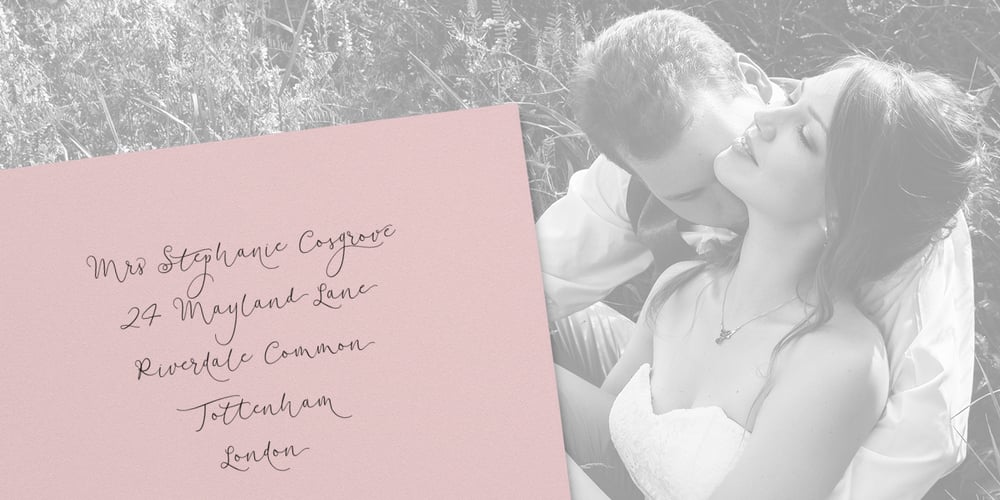
Soft Whisperings Calligraphic Font Family was designed by Joanne Hewitt and published by Joanne Marie. Soft Whisperings Calligraphic contains 1 styles and family package options. Introducing Soft Whisperings Calligraphic – A beautifully flowing modern calligraphy font. This delicate, modern script font is full of romance and elegance. It’s perfect for wedding stationery, Save The Date and special occasion cards. Soft Whisperings has a lovely handwritten feel to it so it’s also great for logos, signatures, taglines and calligraphic projects. There are plenty of alternate glyphs and ligatures! International Language Support Soft Whisperings Calligraphic supports 219 latin based languages, which are spoken in different 212 countries. Abenaki, Afaan Oromo, Afar, Afrikaans, Albanian, Alsatian, Amis, Anuta, Aragonese, Aranese, Aromanian, Arrernte, Arvanitic (Latin), Asturian, Atayal, Aymara, Azerbaijani, Bashkir (Latin), Basque, Belarusian (Latin), Bemba, Bikol, Bislama, Bosnian, Breton, Cape Verdean Creole, Catalan, Cebuano, Chamorro, Chavacano, Chichewa, Chickasaw, Cimbrian, Cofán, Cornish, Corsican, Creek, Crimean Tatar (Latin), Croatian, Czech, Danish, Dawan, Delaware, Dholuo, Drehu, Dutch, English, Esperanto, Estonian, Faroese, Fijian, Filipino, Finnish, Folkspraak, French, Frisian, Friulian, Gagauz (Latin), Galician, Ganda, Genoese, German, Gikuyu, Gooniyandi, Greenlandic (Kalaallisut), Guadeloupean Creole, Gwich’in, Haitian Creole, Hän, Hawaiian, Hiligaynon, Hopi, Hotcąk (Latin), Hungarian, Icelandic, Ido, Igbo, Ilocano, Indonesian, Interglossa, Interlingua, Irish, Istro-Romanian, Italian, Jamaican, Javanese (Latin), Jèrriais, Kaingang, Kala Lagaw Ya, Kapampangan (Latin), Kaqchikel, Karakalpak (Latin), Karelian (Latin), Kashubian, Kikongo, Kinyarwanda, Kiribati, Kirundi, Klingon, Kurdish (Latin), Ladin, Latin, Latino sine Flexione, Latvian, Lithuanian, Lojban, Lombard, Low Saxon, Luxembourgish, Maasai, Makhuwa, Malay, Maltese, Manx, Māori, Marquesan, Megleno-Romanian, Meriam Mir, Mirandese, Mohawk, Moldovan, Montagnais, Montenegrin, Murrinh-Patha, Nagamese Creole, Nahuatl, Ndebele, Neapolitan, Ngiyambaa, Niuean, Noongar, Norwegian, Novial, Occidental, Occitan, Old Icelandic, Old Norse, Onĕipŏt, Oshiwambo, Ossetian (Latin), Palauan, Papiamento, Piedmontese, Polish, Portuguese, Potawatomi, Q’eqchi’, Quechua, Rarotongan, Romanian, Romansh, Rotokas, Sami (Inari Sami), Sami (Lule Sami), Sami (Northern Sami), Sami (Southern Sami), Samoan, Sango, Saramaccan, Sardinian, Scottish Gaelic, Serbian (Latin), Seri, Seychellois Creole, Shawnee, Shona, Sicilian, Silesian, Slovak, Slovenian, Slovio (Latin), Somali, Sorbian (Lower Sorbian), Sorbian (Upper Sorbian), Sotho (Northern), Sotho (Southern), Spanish, Sranan, Sundanese (Latin), Swahili, Swazi, Swedish, Tagalog,Tahitian, Tetum, Tok Pisin, Tokelauan, Tongan, Tshiluba, Tsonga, Tswana, Tumbuka, Turkish, Turkmen (Latin), Tuvaluan, Tzotzil, Uzbek (Latin), Venetian, Vepsian, Volapük, Võro, Wallisian, Walloon, Waray-Waray, Warlpiri, Wayuu, Welsh, Wik-Mungkan,Wiradjuri, Wolof, Xavante, Xhosa, Yapese, Yindjibarndi, Zapotec, Zarma, Zazaki, Zulu, Zuni. ——————————————————————————————————————— The fonts are PUA encoded which means that you don’t need any special software to be able to use the alternates and Ligatures. Well, that’s about it! Enjoy! Jo